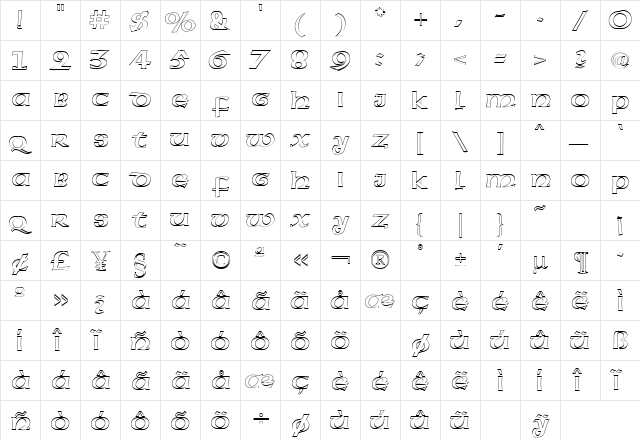
American Uncial Initials Open Regular
Design Context for American Uncial Initials Open Typeface
American Uncial Initials Open takes a measured approach to typography — its balanced proportions and neutral character make it a reliable workhorse for both digital and print work.